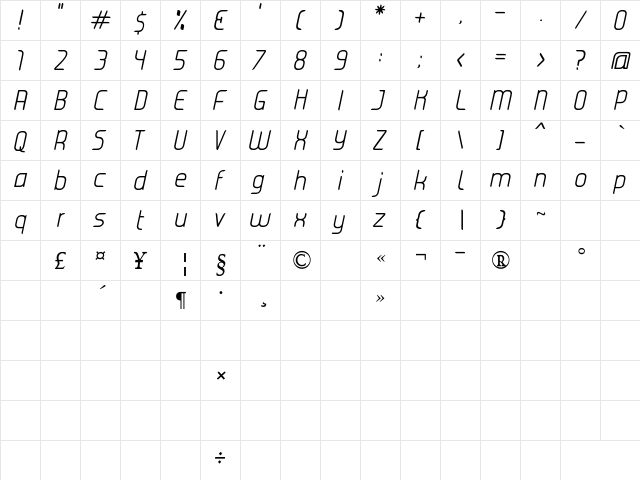
JUICE Light Italic Italic
| Designer | Dhany Arliyanti |
Design Context for JUICE Light Italic Typeface
JUICE Light Italic is a composed and adaptable typeface that performs quietly and consistently across a wide range of design contexts. The dynamic lean of this cut emphasises speed and emphasis in any layout. The delicate stroke weight brings airiness and refinement to layouts.